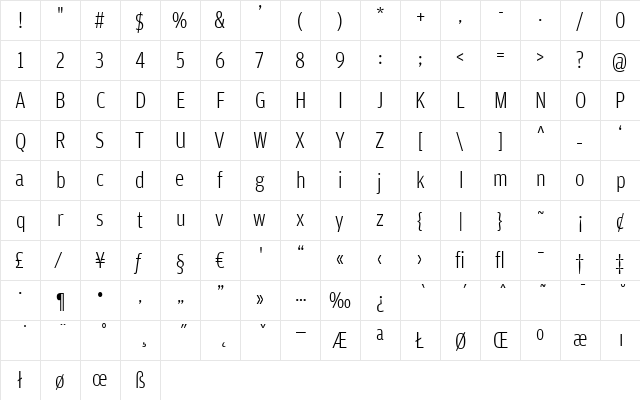
AmplitudeCond-Light Regular
| Foundry | The Font Bureau, Inc |
| Designer | Christian Schwartz |
Design Context for AmplitudeCond-Light Typeface
AmplitudeCond-Light is a composed and adaptable typeface that performs quietly and consistently across a wide range of design contexts. Its slender proportions lend an understated elegance to any composition. The condensed width makes it efficient for tight spaces without sacrificing legibility.